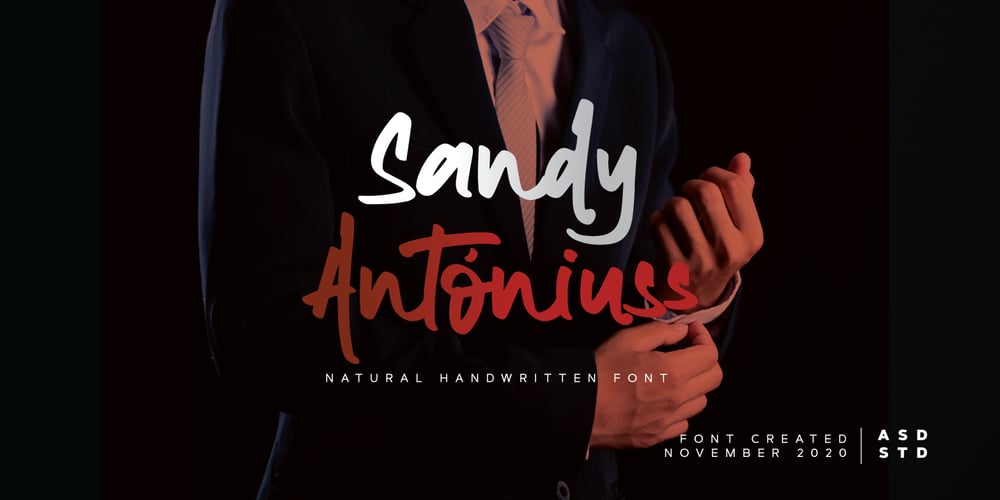
Sandy Antoniuss Font Family was designed by Ghazi and published by Asd Studio. Sandy Antoniuss contains 1 styles and family package options. Introducing the new font Sandy Antoniuss – Natural Handwritten. I made by using a brush pen that makes the impression seem natural. This typeface is suitable for use in a variety of design fields, such as event advertisements, product promotions, book titles, activity titles, logos, adventure, and others. This font can when paired with serif font types will make your design project more beautiful and perfect. I highly recommend using a program that supports OpenType featuresand Glyphs panels such as Adobe Illustrator, Adobe Photoshop CC, Adobe InDesign, or CorelDraw, so you can see and access all Glyph variations. This font is encoded with Unicode PUA, which allows full access toall additional characters without having special design software. Mac users can use Font Book, and Windows users can use Character Map to view and copy one of the extra characters to paste into your favorite text editor / application. I hope you enjoy the font, thank you.